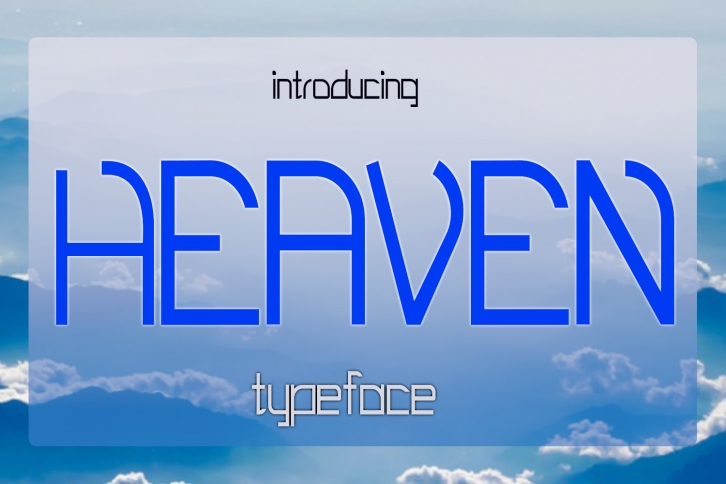
EP Heaven - Elegant Font Download
EP Heaven is a beautiful font that was designed by Emily Penley Fonts. It's a great choice for designers and creatives who need such a font. It was released on June 26, 2018 and the file size is 6.9 MB. EP Heaven may give a more youthful, expressive and casual look to your project. It is a very beautiful, refined, elegant, and high-quality font.